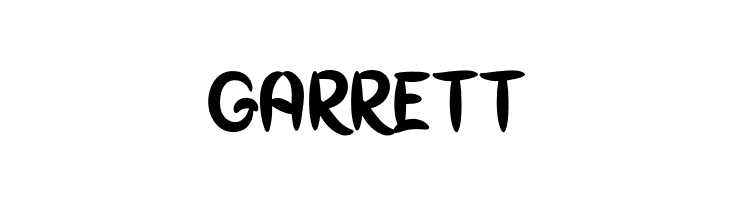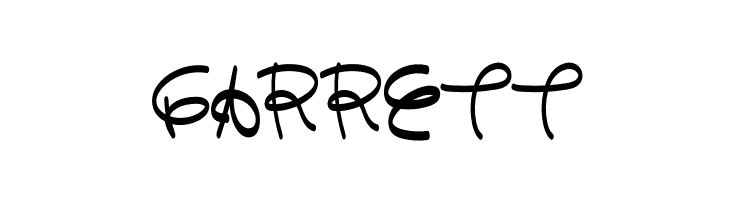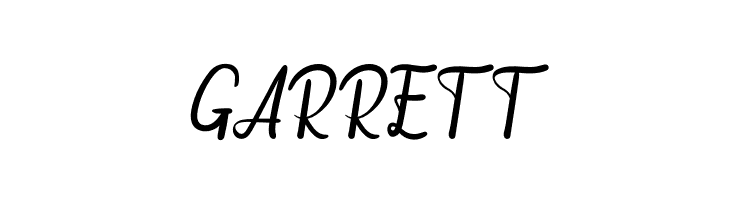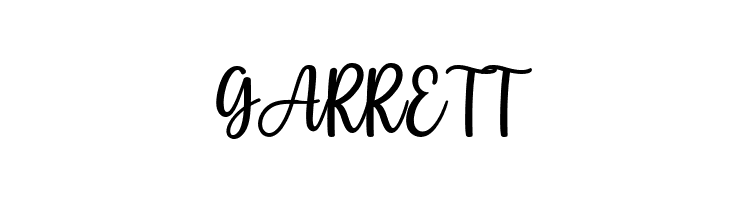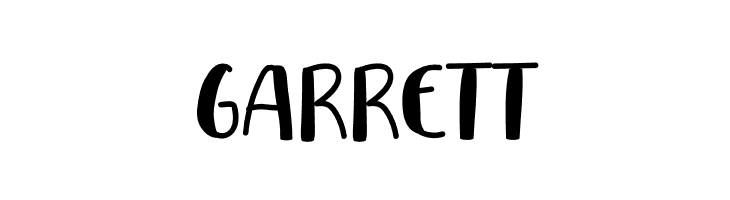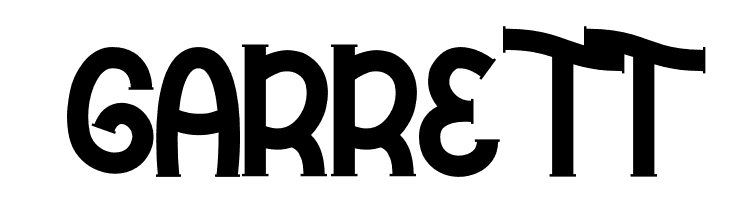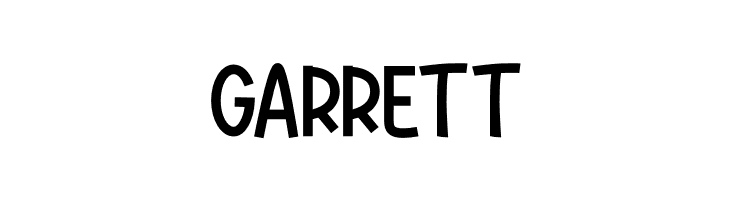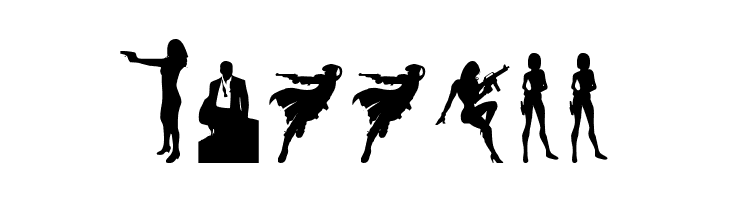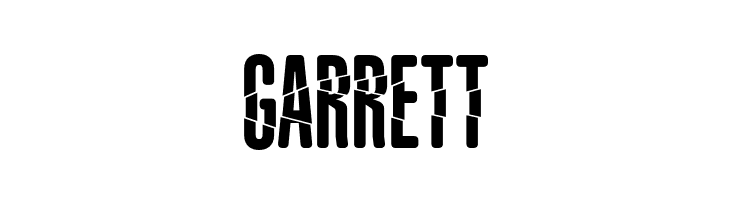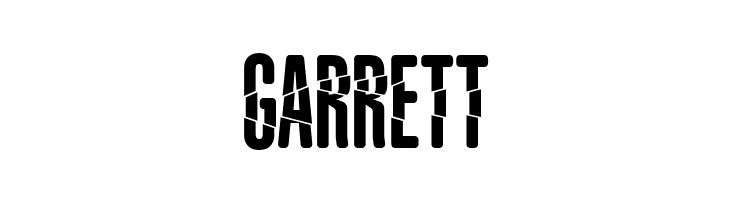
A bold, modern font with a unique cut-through design, perfect for impactful visuals.
A bold, modern font with a unique cut-through effect, perfect for striking headlines.
A bold, playful script font with a handwritten feel.
An elegant script font with flowing, cursive letterforms and decorative flourishes.
A dynamic and flowing script font with elegant, handwritten strokes.
A bold, playful script font with a modern, decorative style.
A stylish and elegant script font with a flowing, cursive design.
A bold, modern font with thick, uniform strokes and high contrast, ideal for headlines.
A modern, geometric monospaced font with clean lines and balanced spacing.
A dynamic and elegant script font with flowing cursive letterforms.
A graceful and elegant script font with flowing, cursive letters.
Silhouette dingbat font with spy and action motifs.
A playful and whimsical font with vintage theatrical flair.
A modern, rounded font with a clean, geometric style.
A bold, rounded, and playful handwritten font with a whimsical style.
A bold, handwritten font with a playful and dynamic style.
A bold, geometric font with tall, narrow uppercase letters and consistent lowercase forms.
A graceful, cursive font with elegant, flowing lines and calligraphic style.
A dynamic, handwritten script font with bold, fluid strokes.
A bold, three-dimensional font with strong outlines and shadow effects.
A flowing, cursive font with elegant loops and smooth transitions.
A playful and elegant script font with smooth, flowing lines.
A playful, handwritten font with bold, rounded characters and a whimsical style.
A playful and whimsical font with bold, curvy elements and a lively appearance.
A playful, slanted font with outlined, layered characters and a modern geometric style.
A decorative, geometric font with outlined characters and a modern aesthetic.
A playful, slanted, outlined font with a dynamic and bold appearance.
A decorative, geometric font with a three-dimensional line effect.
A playful, balloon-like font with rounded, bubbly letters.
A playful and whimsical font with curly, decorative letterforms.
A playful, hand-drawn font with a bold and whimsical style.
A playful, handwritten font with bold, rounded characters and a lively style.